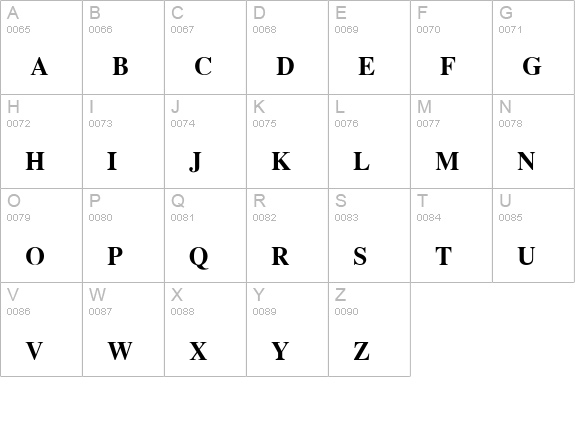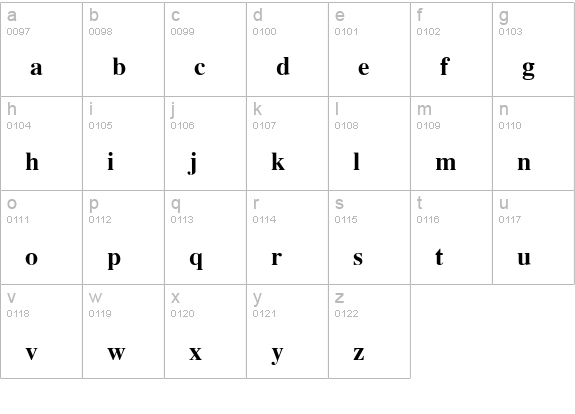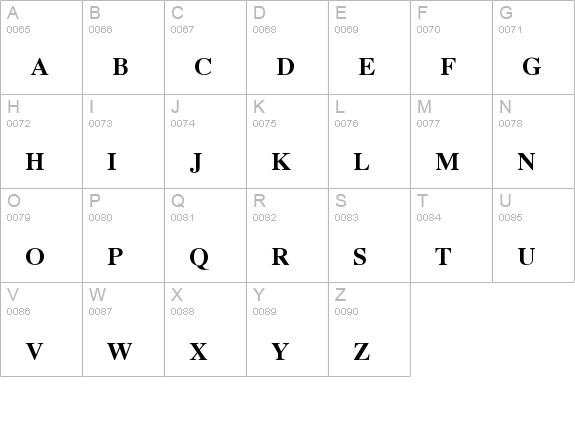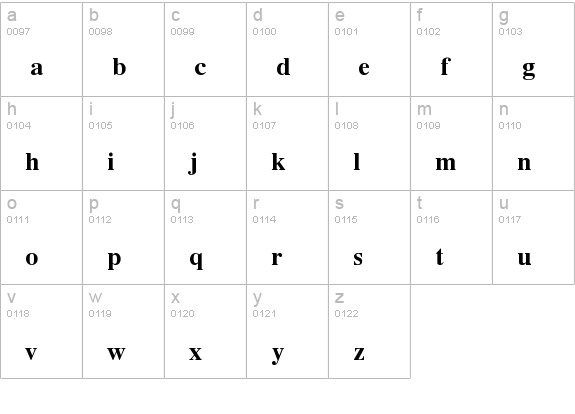
EucrosiaUPC Bold Font Details
EucrosiaUPC Bold is a strong, high-contrast variant in the EucrosiaUPC typeface family \xE2\x80\x94 well suited to headlines, attention-grabbing titles, and strong calls-to-action.
EucrosiaUPC Bold is a modern and stylish font that exudes confidence and sophistication. With its bold and strong appearance, this font is perfect for making a statement in your design projects. Whether you are creating a logo, poster, or any other visual content, EucrosiaUPC Bold will ensure that your message stands out. What makes EucrosiaUPC Bold even more appealing is that it is available for free download at FontsMarket.com. This means that you can easily access this high-quality font without any cost, making it a valuable addition to your font collection. Don't miss out on the opportunity to enhance your designs with the striking presence of EucrosiaUPC Bold. Download it now and elevate your creative projects to new heights.